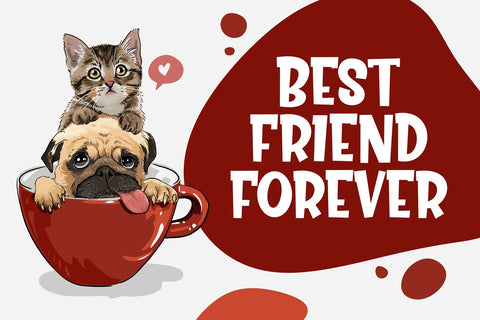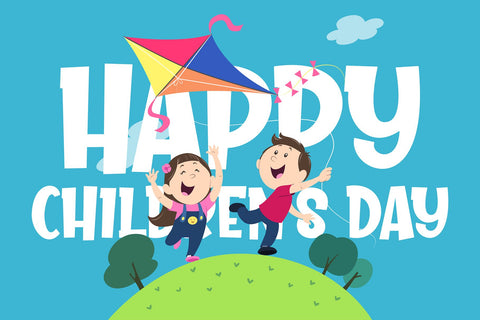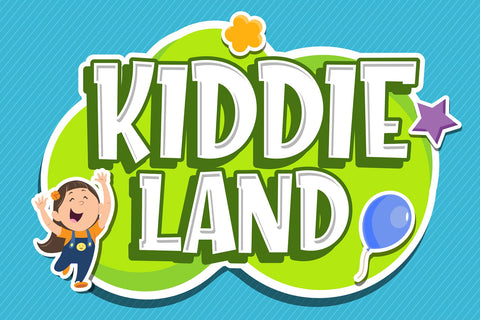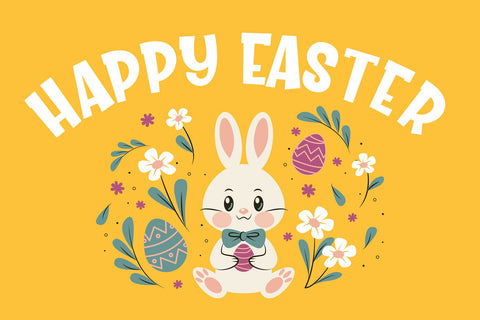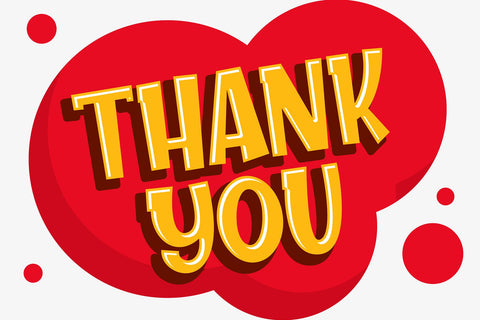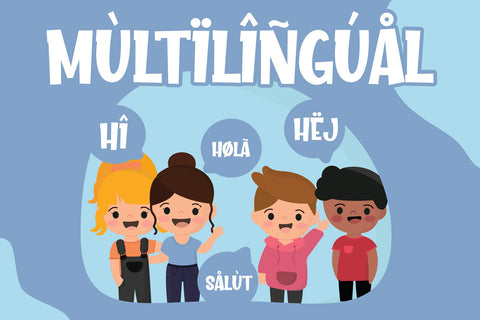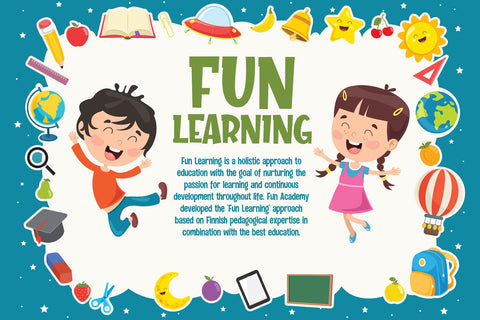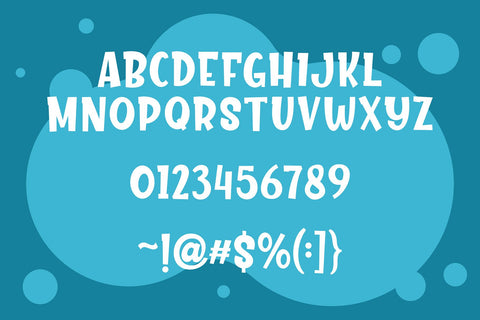
Kiddie Land - Playful Display Font
Say hello to Kiddie Land font
Made with love and joy, it will make your design more beautiful, cute, fun, and colorful.
• Character Set A-Z (All-caps)
• Numerals and Punctuation (OpenType Standard)
• Accents (Multilingual characters)